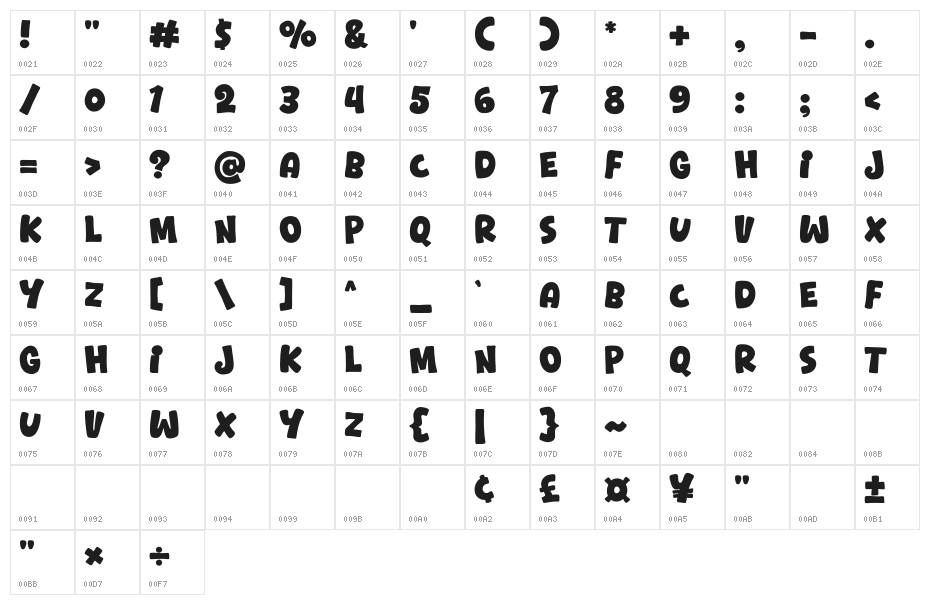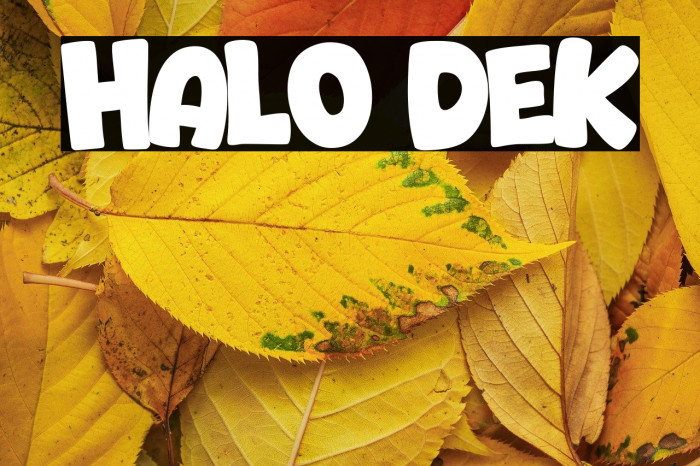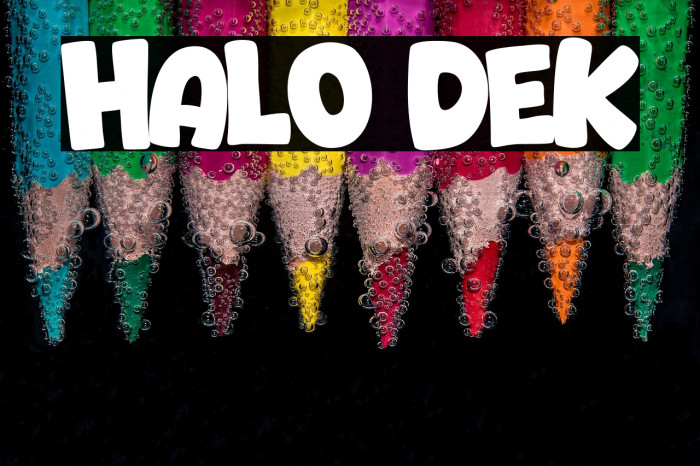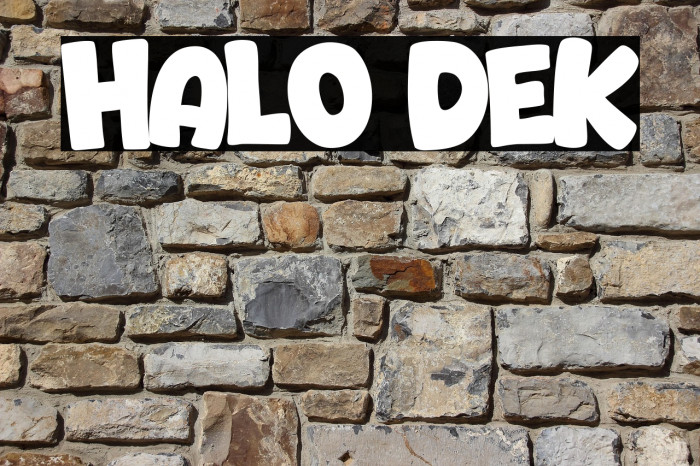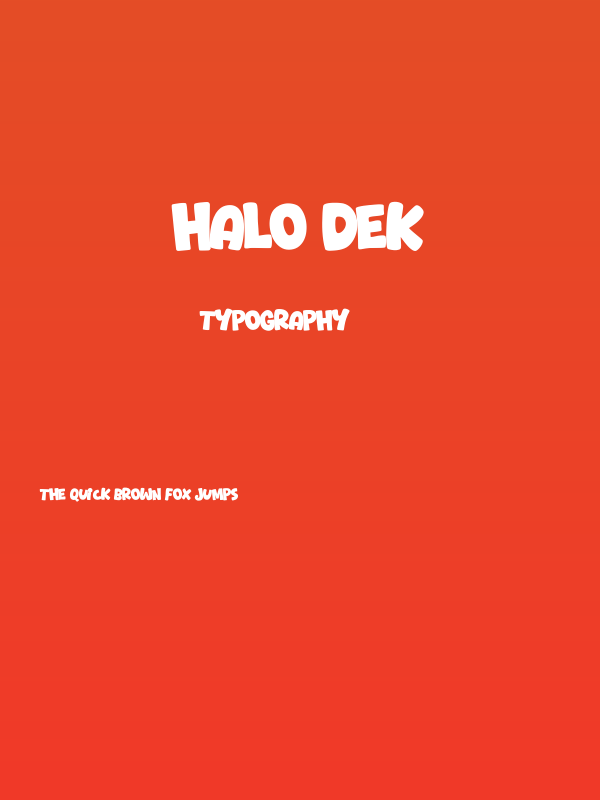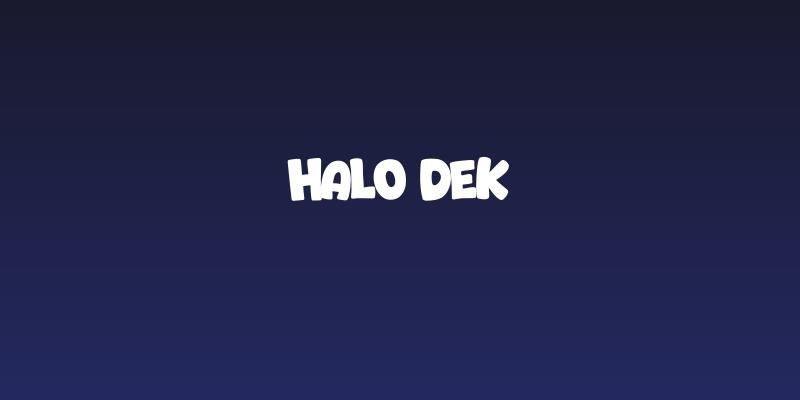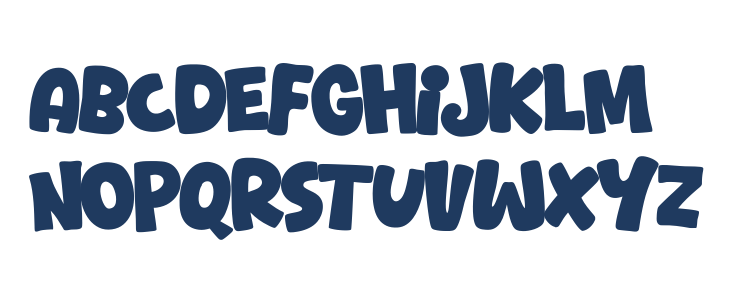
Halo Dek Font
Halo Dek Description
This font features bold, rounded characters with a playful and cartoonish style. The letters are thick and have a consistent weight throughout, giving them a strong presence. The rounded edges and exaggerated curves contribute to a friendly and approachable appearance. The numbers and special characters maintain the same playful aesthetic, making the font suitable for informal and fun designs. The overall look is cohesive, with each character maintaining a similar width and height, ensuring uniformity across text. This font is ideal for projects that require a lively and energetic vibe.
| Overall Style | Playful, Cartoonish |
| Proposed Projects | Perfect for children's books, comic strips, playful branding, and event posters. |